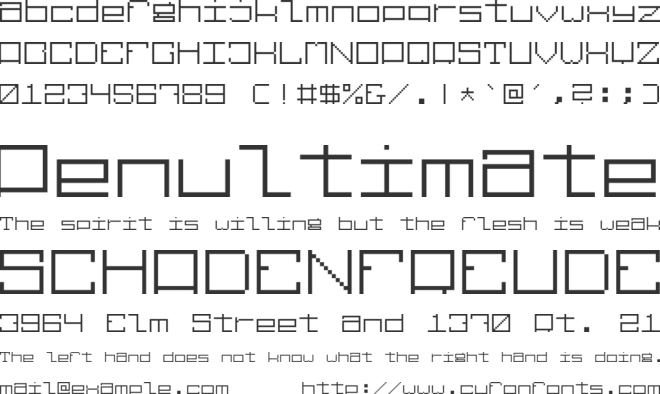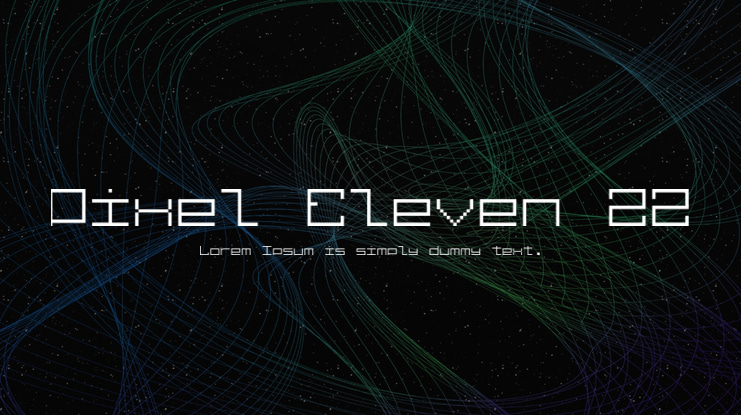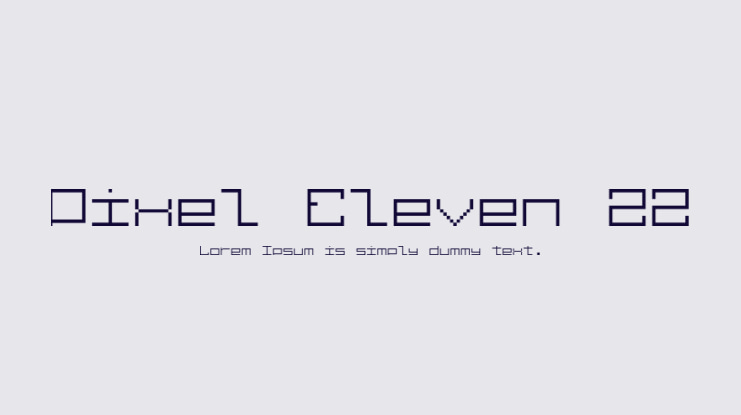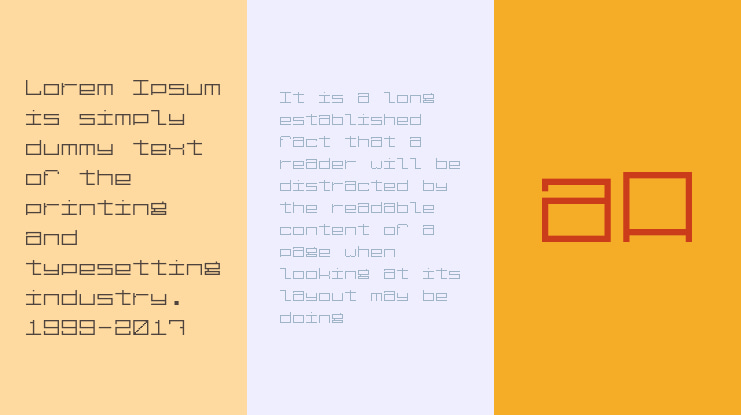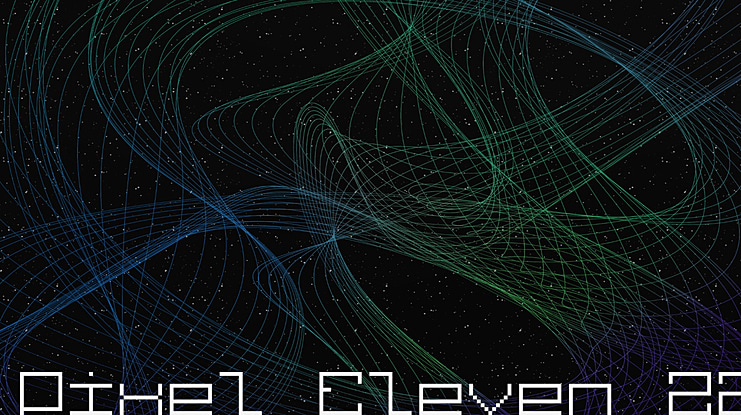
Pixel Eleven 22 Font
I have made a few "square pixel fonts", but this one is my favourite. It's 11x11 pixels in size. I consider it to be a very tasteful resolution for this idea. That's why I added the lowercase letters to this one, with a punch of diacritics. My favourite is the lowercase 'g'.